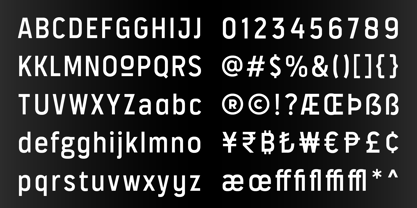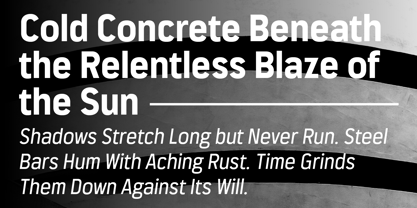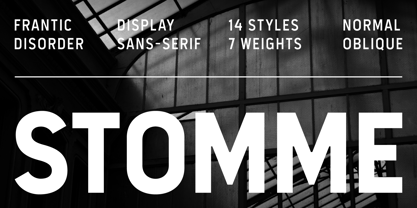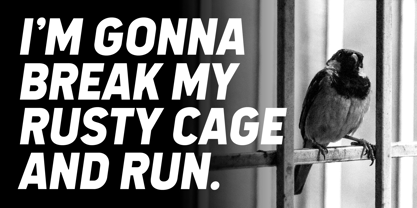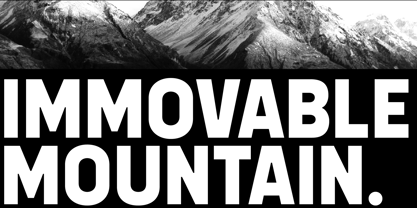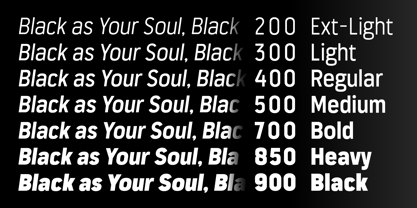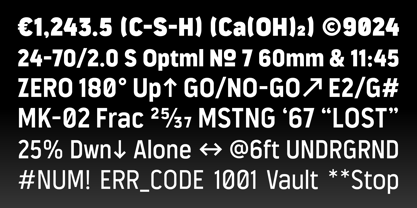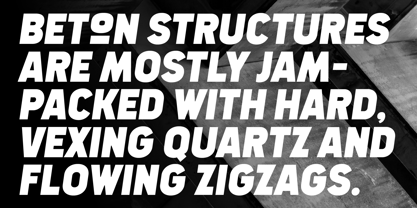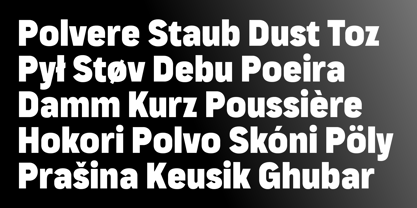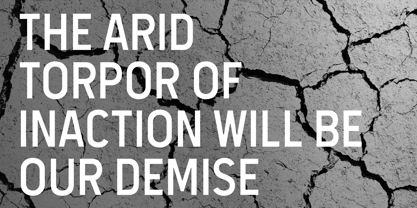
Stomme
by Frantic Disorder
The Stomme Font Family was designed by Kautsar Rahadi and published by Frantic Disorder. Stomme contains 14 styles and family package options. More about this family
Stomme is a modern display sans-serif font with a strong, sharp, and sturdy design. It includes 14 styles, featuring 7 weights from Extra-Light to Black with Oblique versions. Perfect for display use in headings, branding, logos, posters, and more.
Designers: Kautsar Rahadi
Foundry: Frantic Disorder